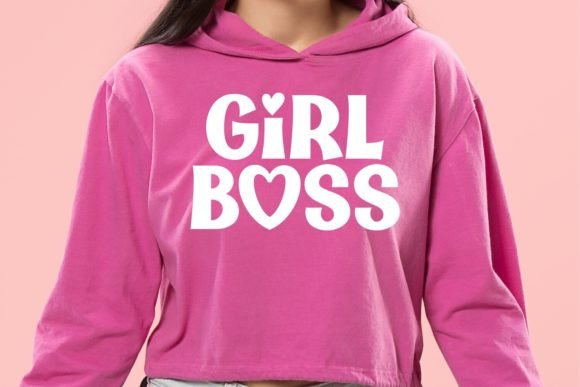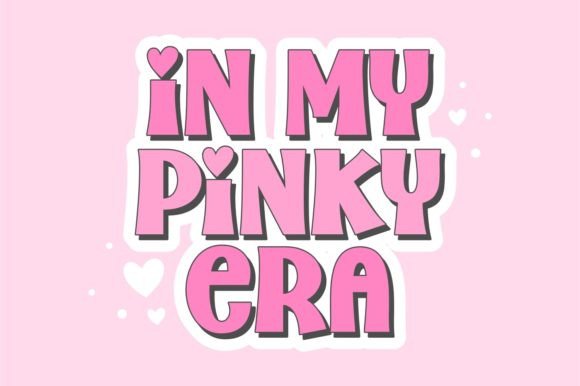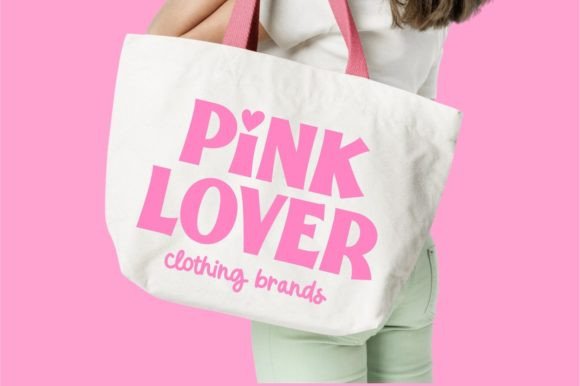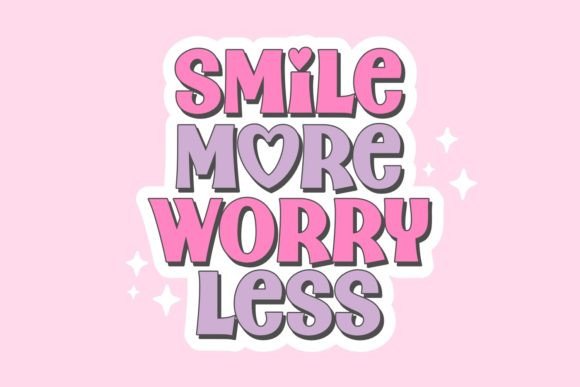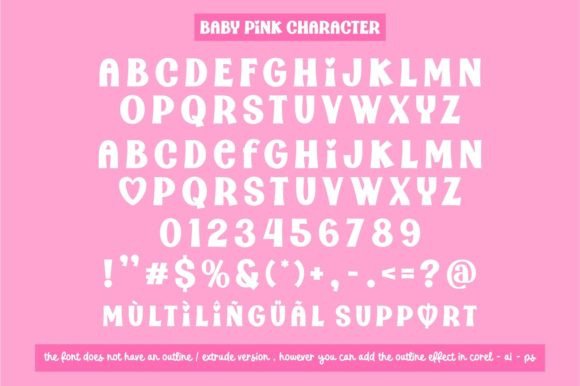
Baby Pink Font: The Ultimate Choice for Playful and Cute Designs
Are you looking for a font that can add a touch of playfulness and cuteness to your designs? Look no further than Baby Pink, a bold and vibrant font that’s perfect for a variety of mediums. In this article, we’ll explore the features and benefits of Baby Pink, and show you how to use it to take your designs to the next level.
What is Baby Pink Font?
Baby Pink is a bold font that’s designed to bring a sense of joy and playfulness to your designs. Its light-hearted and cheerful vibe makes it perfect for projects that require a touch of whimsy and fun. Whether you’re designing greeting cards, t-shirt designs, school logos, or social media graphics, Baby Pink is the perfect choice.
Key Features of Baby Pink Font
- Playful and Cute: Baby Pink is a font that’s all about fun and playfulness. Its bold and vibrant design makes it perfect for projects that require a touch of whimsy and humor.
- Versatile: Baby Pink is a versatile font that can be used in a variety of mediums, from greeting cards to t-shirt designs, school logos, and social media graphics.
- Easy to Read: Despite its bold and playful design, Baby Pink is easy to read and understand, making it perfect for projects that require clear communication.
- Customizable: Baby Pink is a customizable font that can be adjusted to fit your design needs. You can change its size, color, and style to match your brand’s identity.
How to Use Baby Pink Font in Your Designs
Using Baby Pink in your designs is easy. Here are a few tips to get you started:
- Greeting Cards: Add a touch of playfulness to your greeting cards with Baby Pink. Use it to create fun and colorful designs that will make your cards stand out.
- T-Shirt Designs: Baby Pink is perfect for t-shirt designs that require a touch of whimsy and humor. Use it to create fun and playful designs that will appeal to a wide range of audiences.
- School Logos: Add a touch of cheer to your school logos with Baby Pink. Use it to create fun and colorful designs that will appeal to students and parents alike.
- Social Media Graphics: Baby Pink is perfect for social media graphics that require a touch of playfulness and fun. Use it to create engaging and interactive designs that will resonate with your audience.
Benefits of Using Baby Pink Font
There are many benefits to using Baby Pink in your designs. Here are a few:
- Increased Engagement: Baby Pink is a font that’s designed to engage and interact with your audience. Its playful and cheerful vibe makes it perfect for projects that require a touch of whimsy and humor.
- Improved Brand Identity: Baby Pink can help improve your brand identity by adding a touch of playfulness and fun to your designs. Its bold and vibrant design makes it perfect for projects that require a strong brand presence.
- Enhanced Creativity: Baby Pink is a font that’s designed to inspire creativity and imagination. Its playful and cheerful vibe makes it perfect for projects that require a touch of whimsy and humor.
Tips and Tricks for Using Baby Pink Font
Here are a few tips and tricks for using Baby Pink in your designs:
- Use it with Bold Colors: Baby Pink is a font that looks great with bold and vibrant colors. Use it with colors like blue, green, and yellow to create fun and playful designs.
- Experiment with Different Sizes: Baby Pink is a font that can be used in a variety of sizes. Experiment with different sizes to find the one that works best for your design.
- Pair it with Other Fonts: Baby Pink can be paired with other fonts to create a unique and interesting design. Try pairing it with a serif font like Arial or Times New Roman.
In conclusion, Baby Pink is a font that’s perfect for designers and crafters who want to add a touch of playfulness and cuteness to their designs. Its bold and vibrant design makes it perfect for a variety of mediums, from greeting cards to t-shirt designs, school logos, and social media graphics. With its easy-to-read design and customizable features, Baby Pink is a font that’s sure to take your designs to the next level.